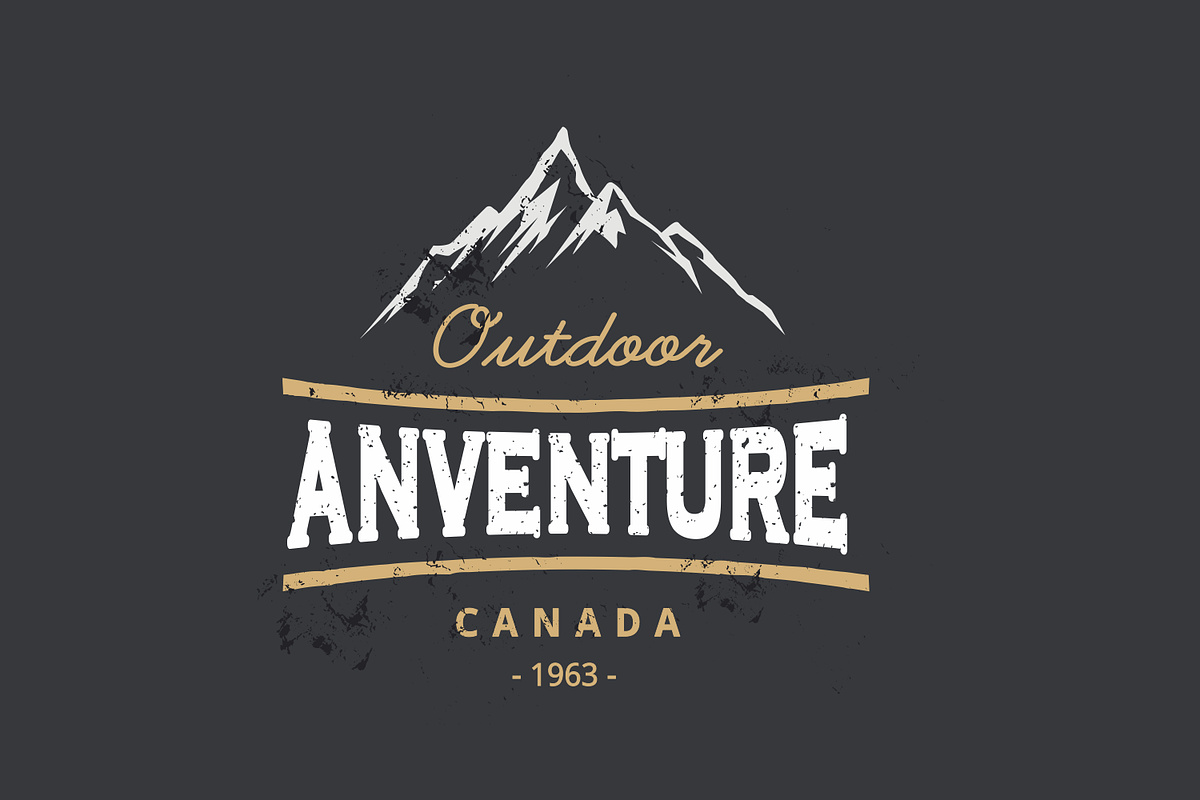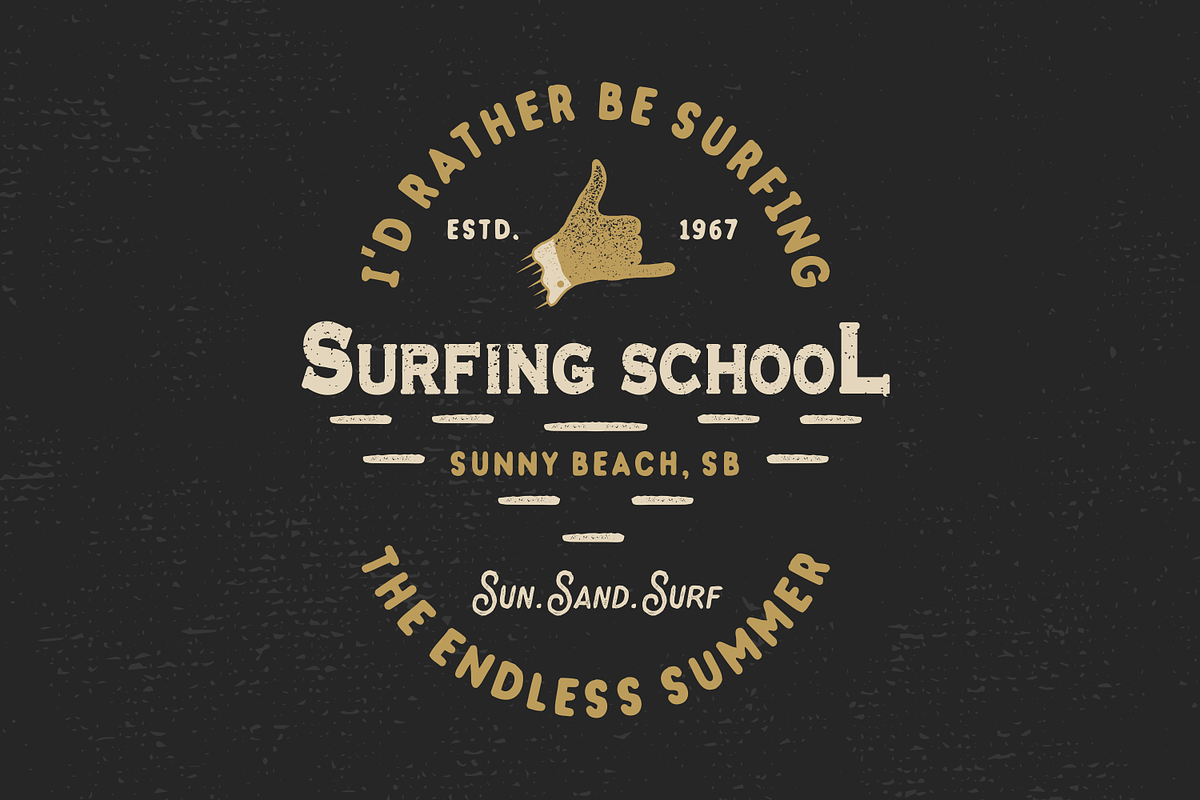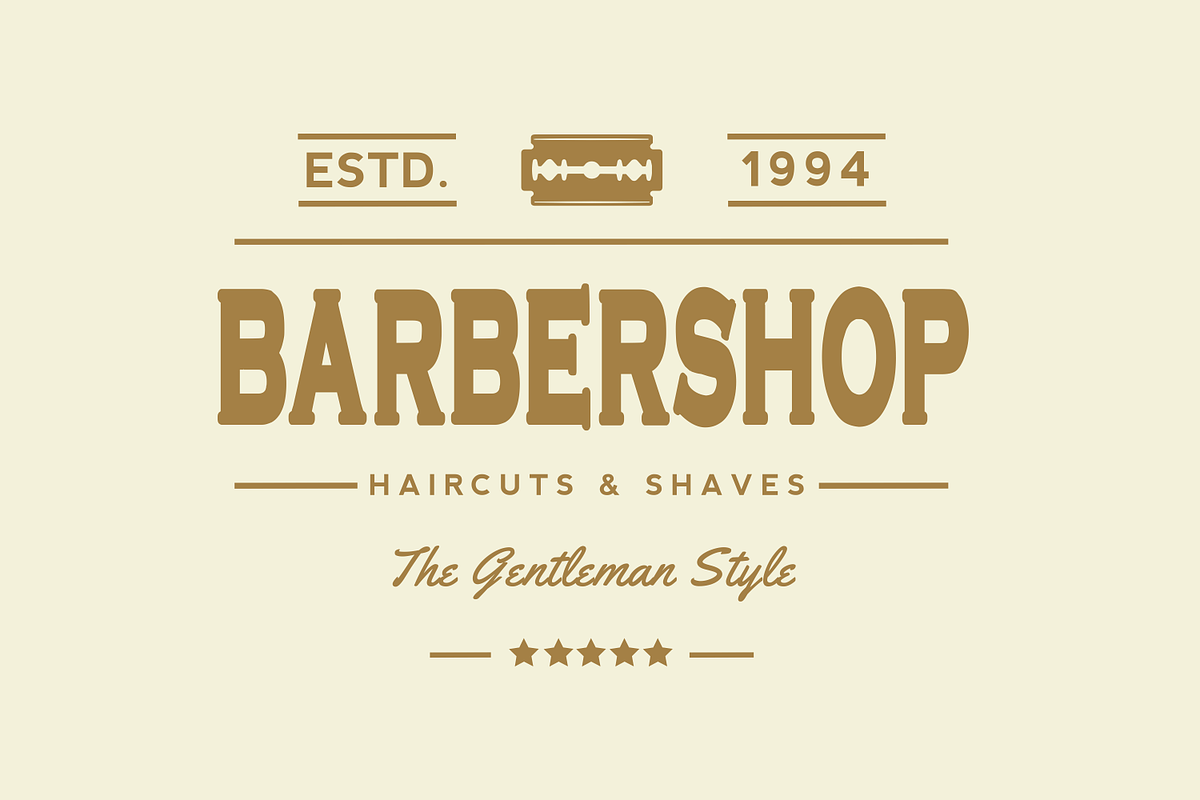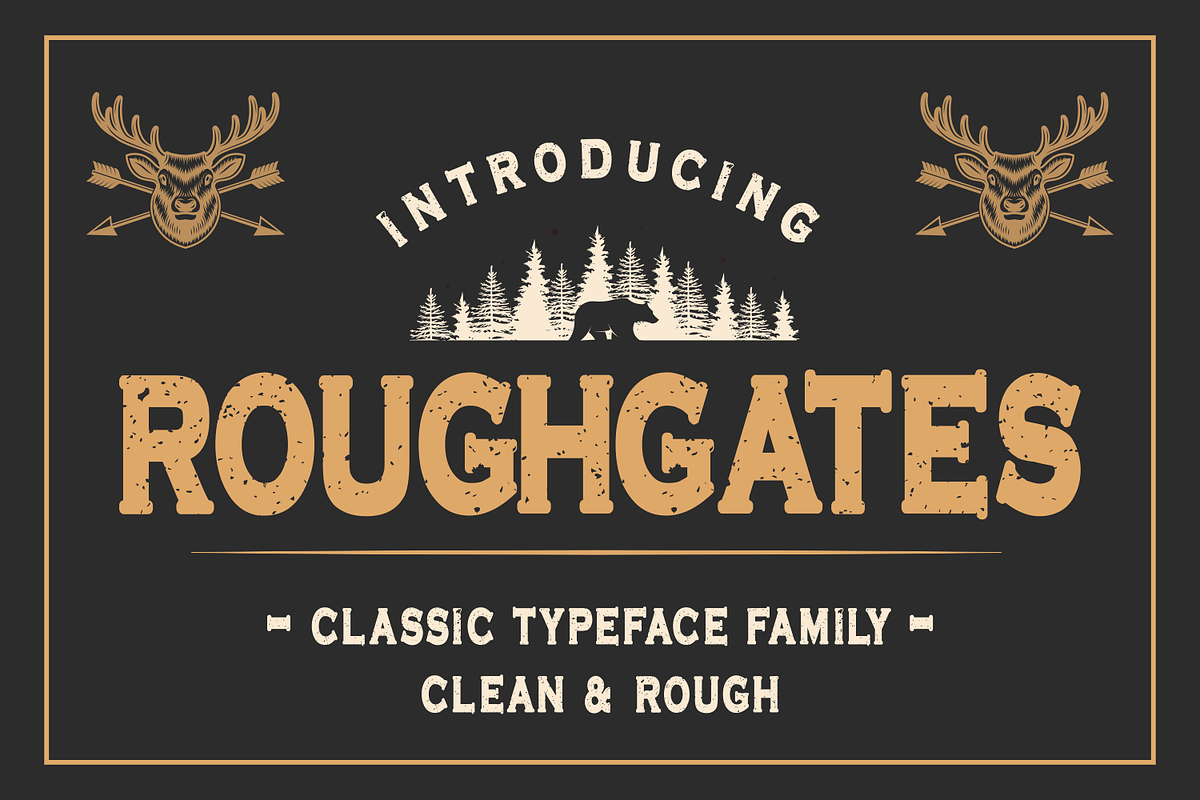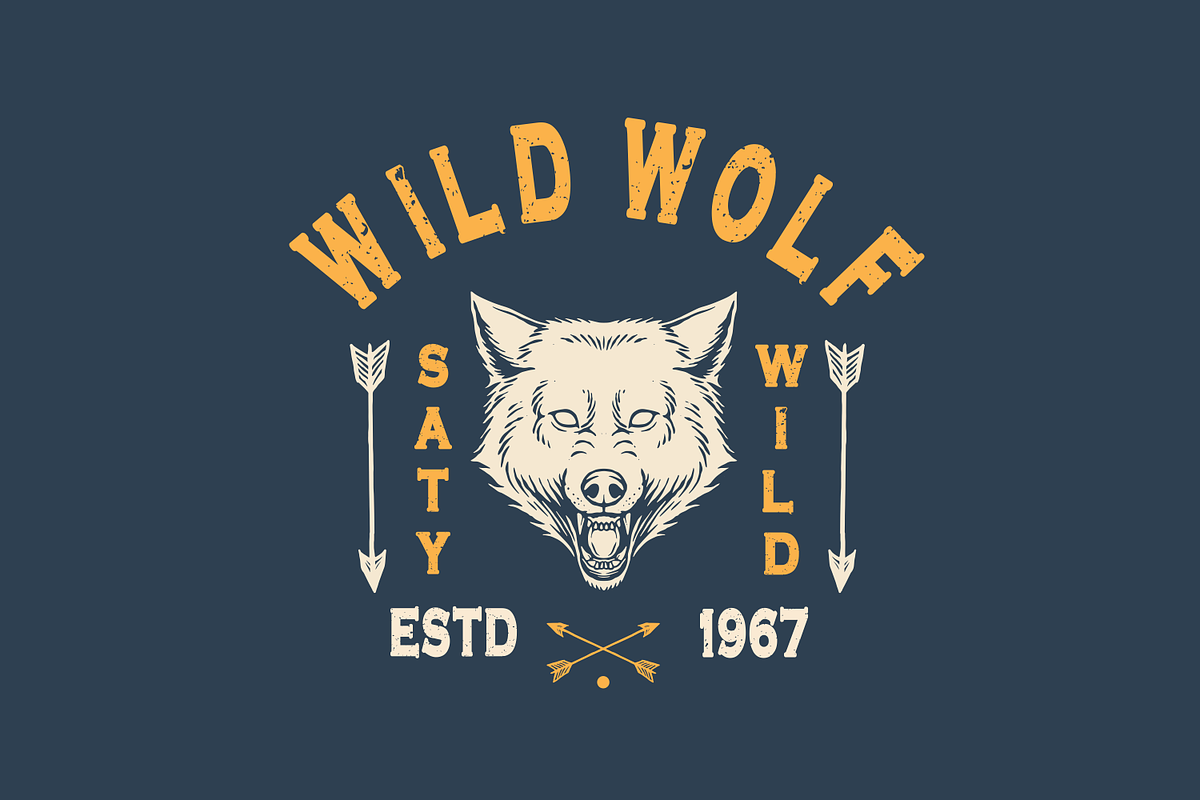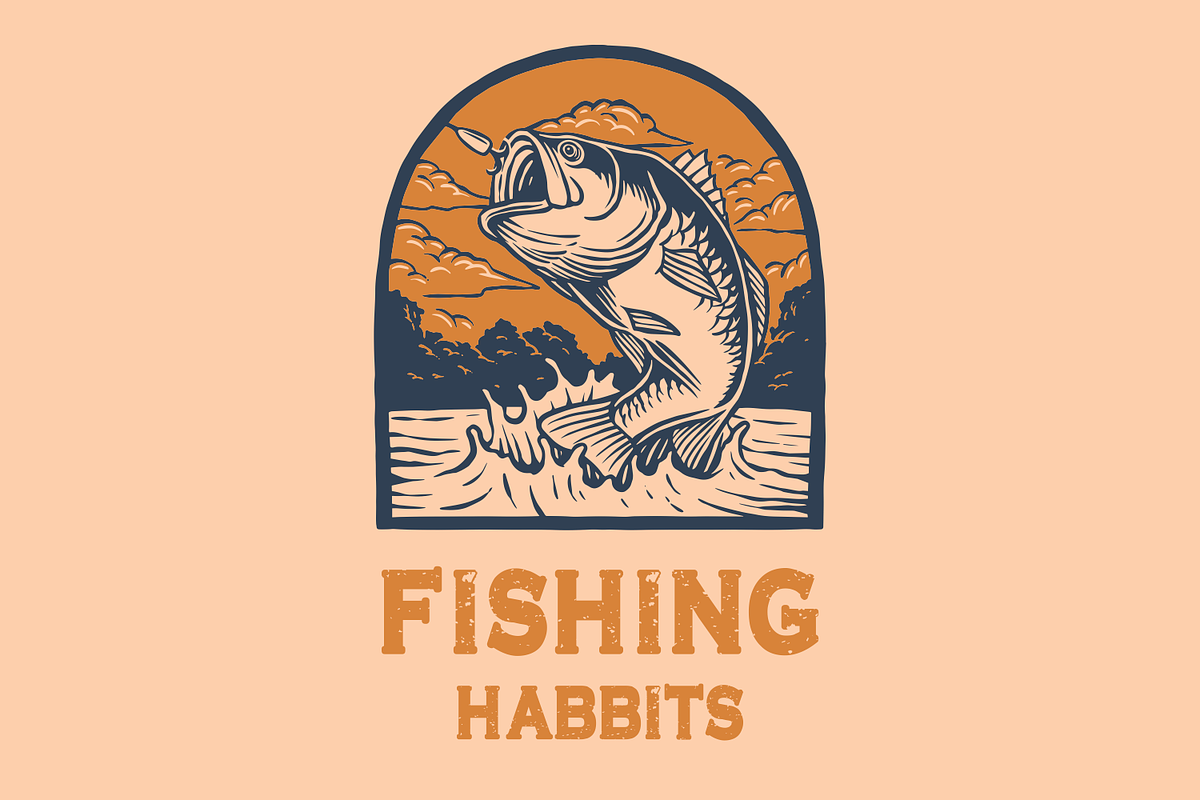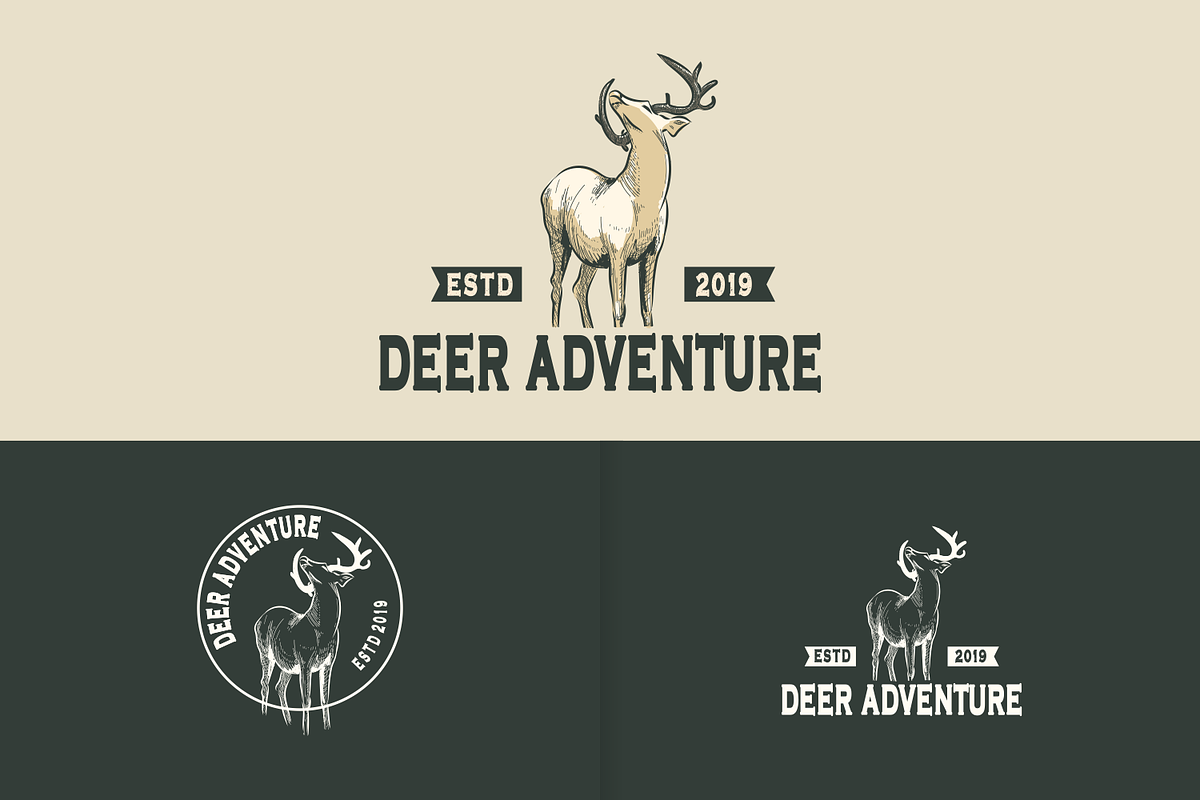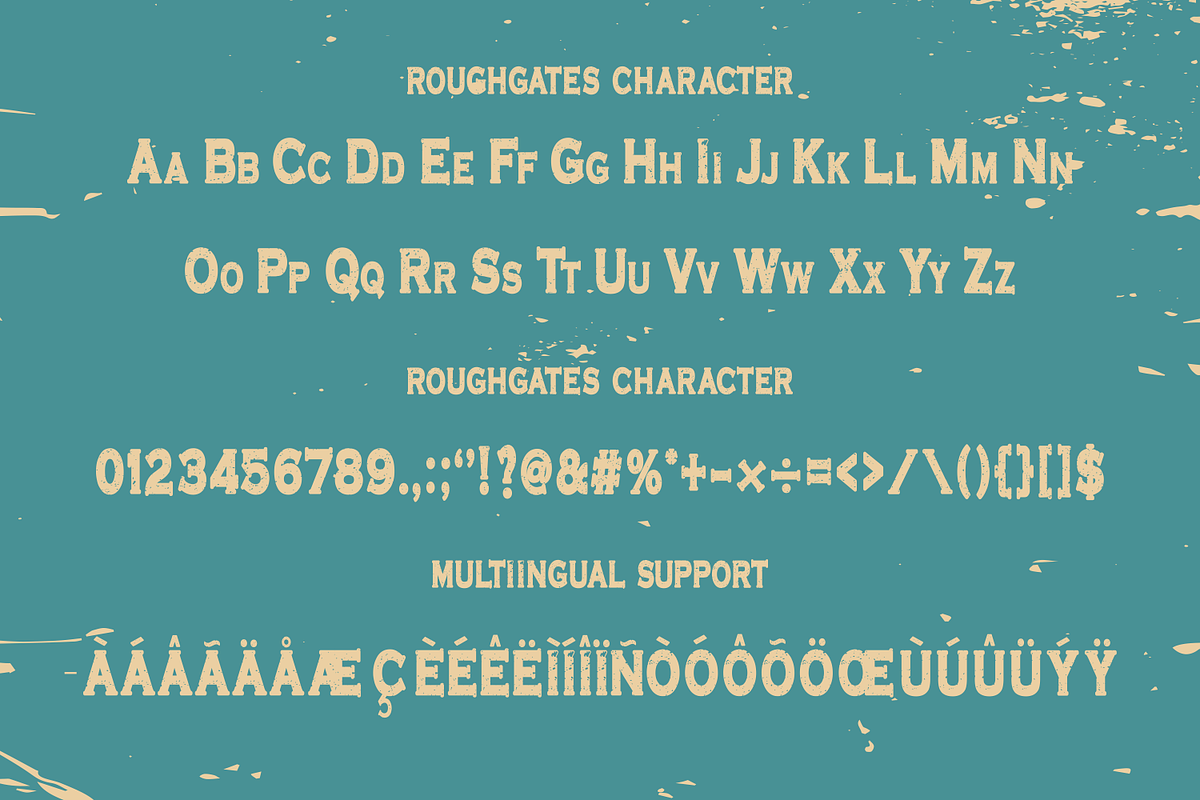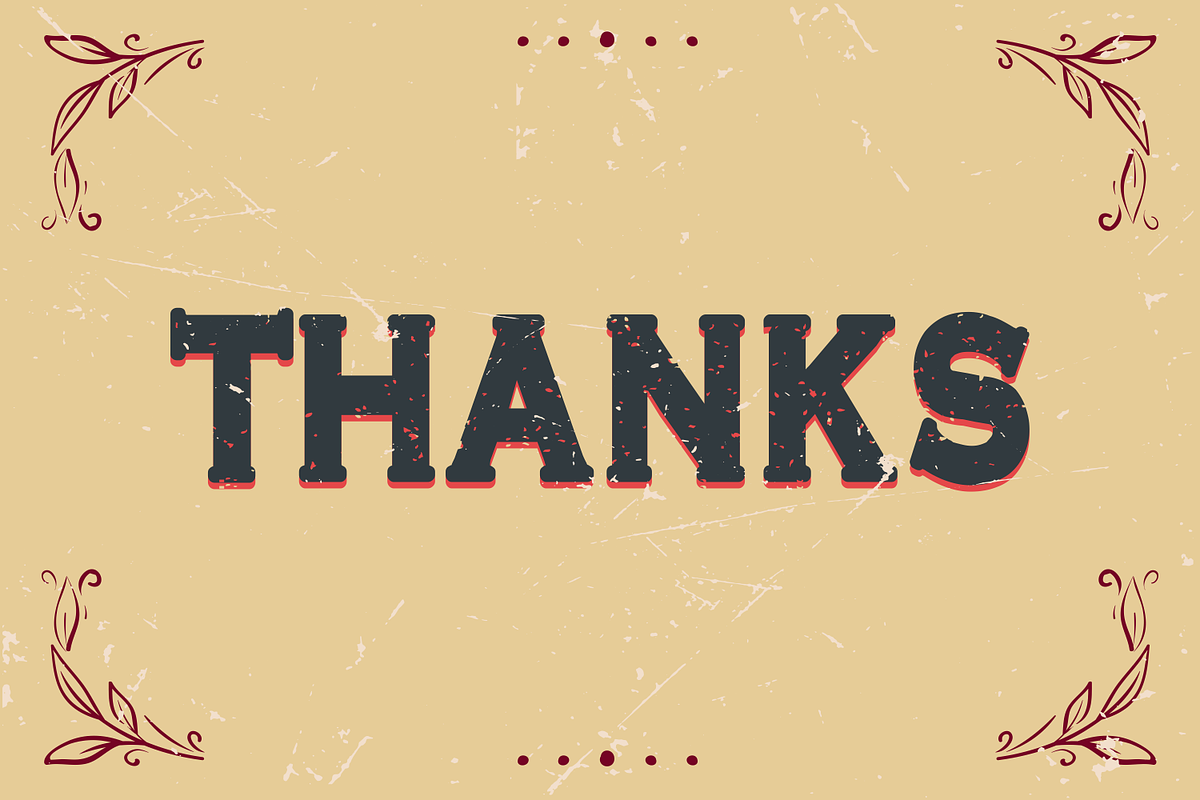
Roughgates
Roughgates Display Font is a bold and chunky lettered display typeface. It’s a versatile serif typeface that gives a vintage aesthetic.
Roughgates has multi-language support with western characters included. Roughgates include 2 font , clean version and rough version Add this font to your creative ideas and notice how it will make them stand out!